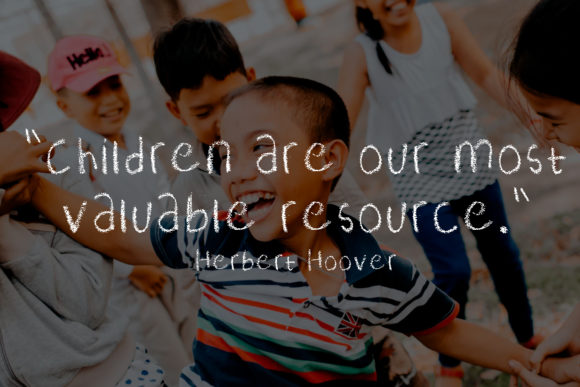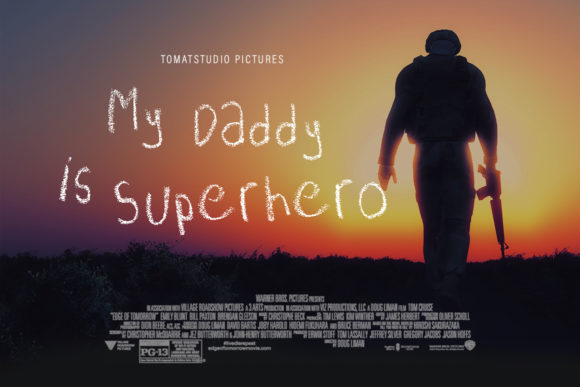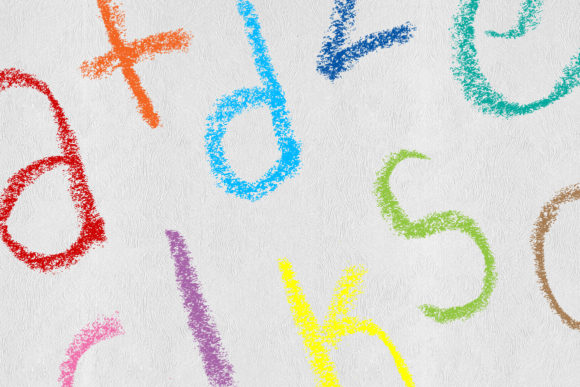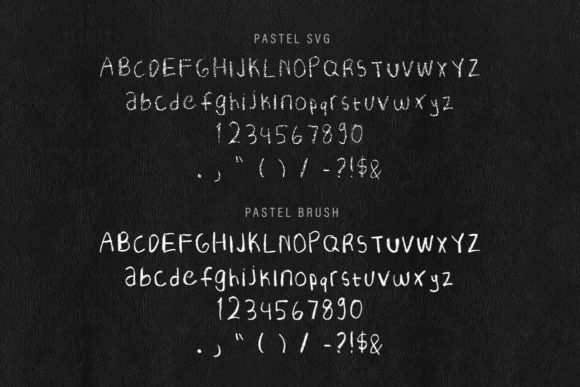
Pastel Font
About Pastel Font
Pastel is a sweet and playful handwritten font, designed to brighten up any school or kids project! This enchanting and friendly font will
turn any creative idea into a true standout.